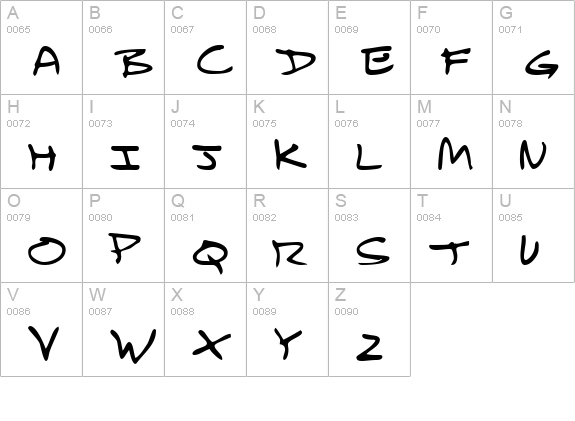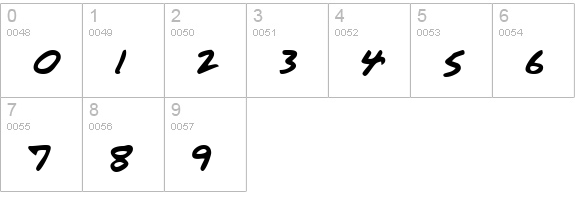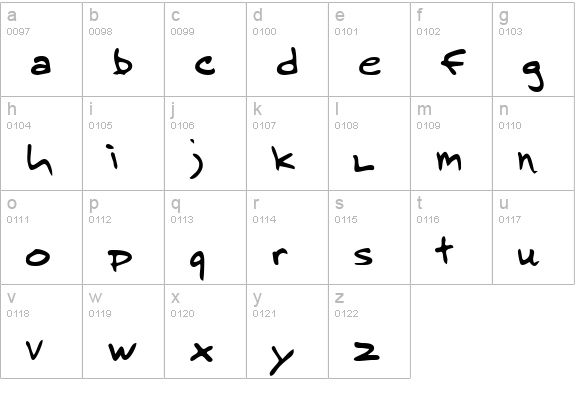
RalphsHand Regular Font Details
RalphsHand Regular is the standard, neutral variant in the RalphsHand typeface family \xE2\x80\x94 well suited to general body text, paragraphs, and standard typographic work.
RalphsHand Regular is a charming and versatile font that exudes a sense of handwritten authenticity. With its elegant yet playful strokes, this font is perfect for adding a personal touch to any project. Whether you're designing invitations, creating logos, or crafting beautiful quotes, RalphsHand Regular is sure to captivate your audience. What sets RalphsHand Regular apart is its incredible attention to detail. Each letter is meticulously crafted to resemble the fluidity of a true handwritten script. From the elegant curves to the delicate loops, every element of this font has been carefully considered to ensure a seamless and visually appealing result. But what makes RalphsHand Regular even more remarkable is that it is completely free. That's right, you can download this exquisite font at no cost from FontsMarket.com. Whether you're a professional designer or a hobbyist, the accessibility of RalphsHand Regular allows you to bring your creative visions to life without breaking the bank. The versatility of RalphsHand Regular is evident in its range of applications. From wedding invitations to social media graphics, this font adds a touch of whimsy and elegance to any project. Its legibility makes it suitable for both headline and body text, ensuring that your message is conveyed with clarity and style. So why wait? Download RalphsHand Regular today and let your creativity soar. With its free availability at FontsMarket.com, there's no reason not to add this beautiful font to your collection. Embrace the charm and elegance of RalphsHand Regular and watch as your designs come to life with a touch of handwritten magic.